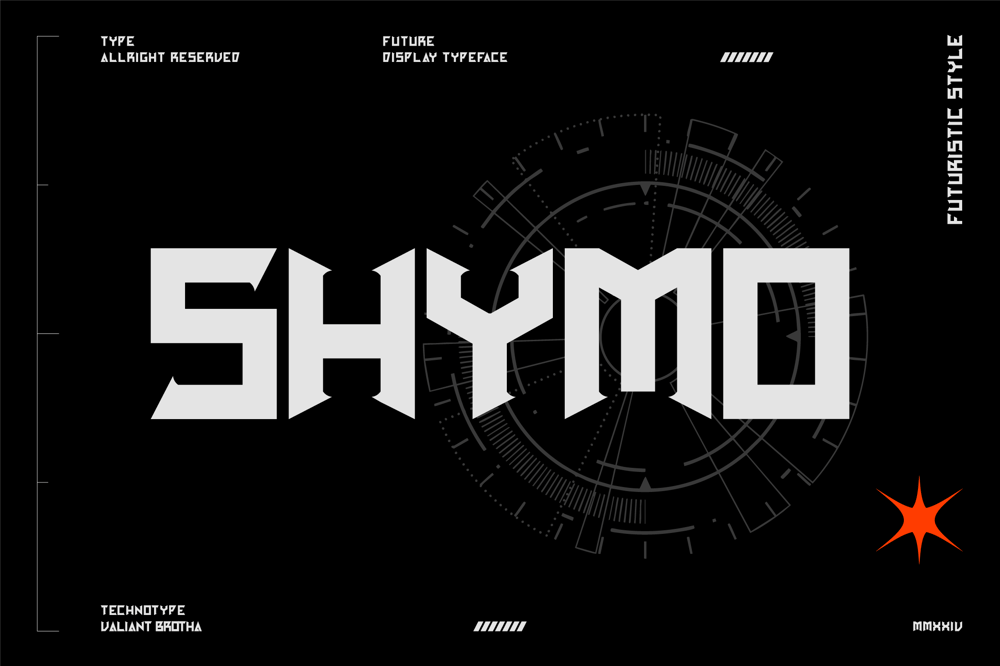
Shymo Font Family was designed by Agus Prima and published by Valiantbrotha. Shymo contains 1 styles and family package options. Unveil the next level of design with Shymo, a futuristic typeface that merges sleek, techno-inspired aesthetics with cutting-edge innovation. Designed for creators who seek to blend modern sophistication with digital energy, Shymo is a bold and dynamic font that makes a statement in any digital or print medium.